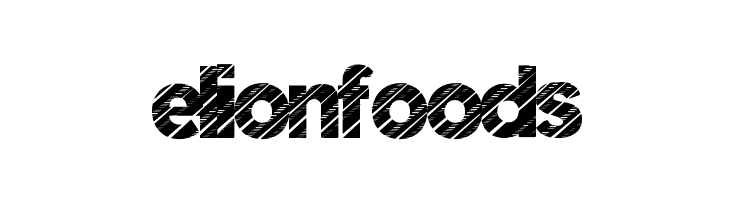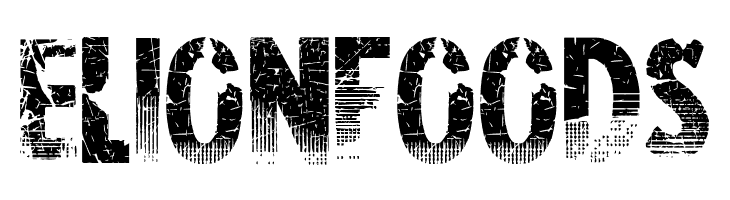
• Nowharehouse
A bold, distressed font with a grunge, industrial style.
• NuevoDisco
A bold, modern font with a unique diagonal line pattern for dynamic visual appeal.
• NX Regular
• o-wee-ental
• O.K. Retro
A bold, geometric font with a modern and structured design.
• O.K. Retro
• Oasis Rising
A bold, handwritten font with rounded strokes and a playful, dynamic style.
• Obey Signature
A fluid, cursive font with elegant, connected characters.
• Oestrogen
A bold, geometric font with a modern and impactful design.
• Ogirema
A modern sans-serif font with clean lines and balanced proportions.